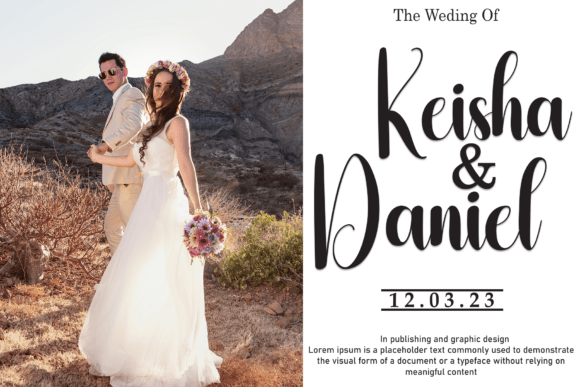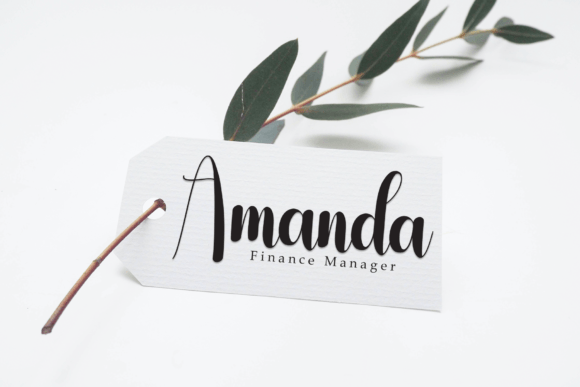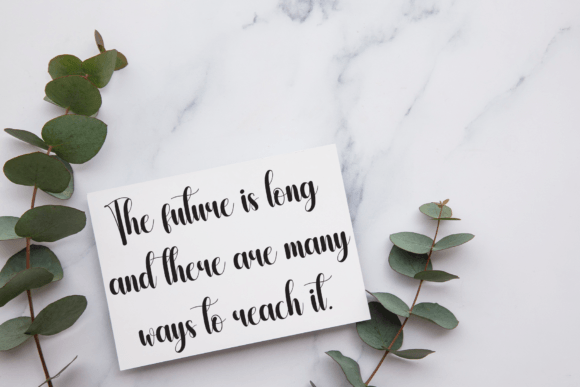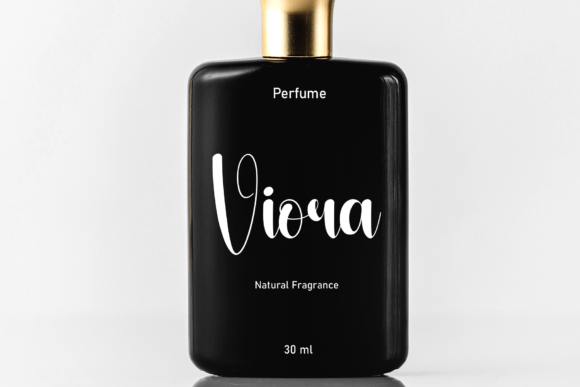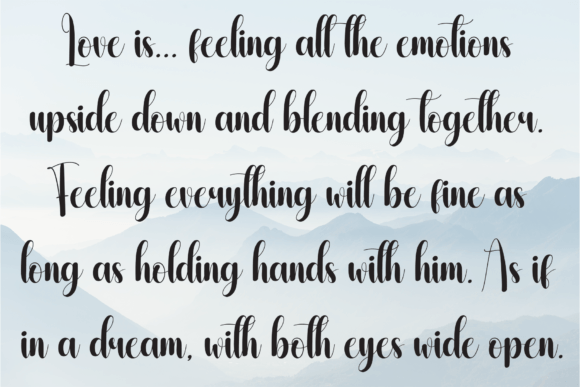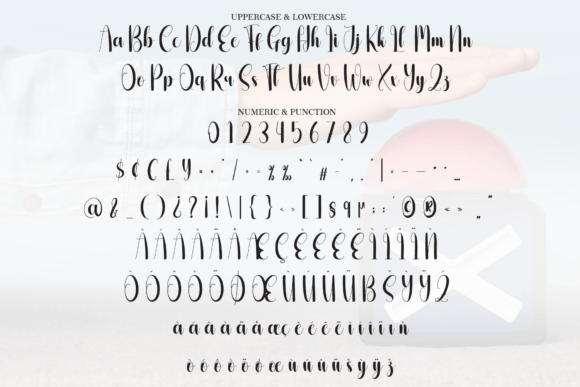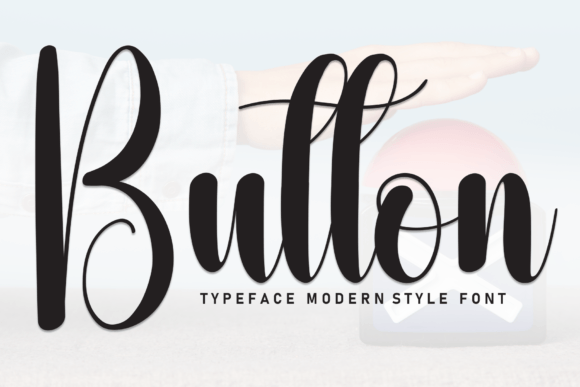
Introducing Button Font: The Sweet and Friendly Handwritten Display Font
Are you looking for a font that can add a touch of fun and whimsy to your designs? Look no further than Button Font, a sweet and friendly handwritten display font that’s perfect for a variety of creative projects. In this article, we’ll take a closer look at Button Font, its features, and how you can use it to elevate your designs.
What is Button Font?
Button Font is a beautiful handwritten display font that’s designed to bring a smile to your face. With its cute and fun appearance, this font is ideal for writing wedding invitations, cards, or any other design that might need a fun touch. Whether you’re a designer, crafter, or DIY enthusiast, Button Font is a great addition to your font collection.
Key Features of Button Font
- Handwritten appearance: Button Font has a unique, handwritten appearance that’s perfect for creating personal and friendly designs.
- Cute and fun: This font is designed to be playful and fun, making it ideal for designs that need a touch of whimsy.
- Display font: Button Font is a display font, which means it’s perfect for headlines, titles, and other prominent text elements.
- Easy to read: Despite its playful appearance, Button Font is easy to read, making it perfect for body text as well as headlines.
Use Cases for Button Font
Button Font is a versatile font that can be used in a variety of creative projects. Here are some ideas to get you started:
- Wedding invitations: Button Font is perfect for writing sweet and sentimental wedding invitations that set the tone for a joyful celebration.
- Greeting cards: This font is great for creating fun and playful greeting cards for birthdays, holidays, and other special occasions.
- DIY projects: Button Font is a great choice for DIY enthusiasts who want to add a personal touch to their projects, such as scrapbooking, journaling, or crafting.
- Social media graphics: This font is perfect for creating fun and engaging social media graphics, such as Facebook posts, Instagram captions, or Pinterest graphics.
Tips for Using Button Font
Here are some tips for getting the most out of Button Font:
- Use it sparingly: Button Font is a display font, so it’s best to use it sparingly to add emphasis and visual interest to your designs.
- Pair it with other fonts: Button Font pairs well with other fonts, such as serif or sans-serif fonts, to create a visually appealing contrast.
- Experiment with colors: This font looks great in a variety of colors, so don’t be afraid to experiment and find the perfect color scheme for your design.
Button Font is a sweet and friendly handwritten display font that’s perfect for adding a touch of fun and whimsy to your designs. With its cute and playful appearance, this font is ideal for a variety of creative projects, from wedding invitations to social media graphics. Whether you’re a designer, crafter, or DIY enthusiast, Button Font is a great addition to your font collection.